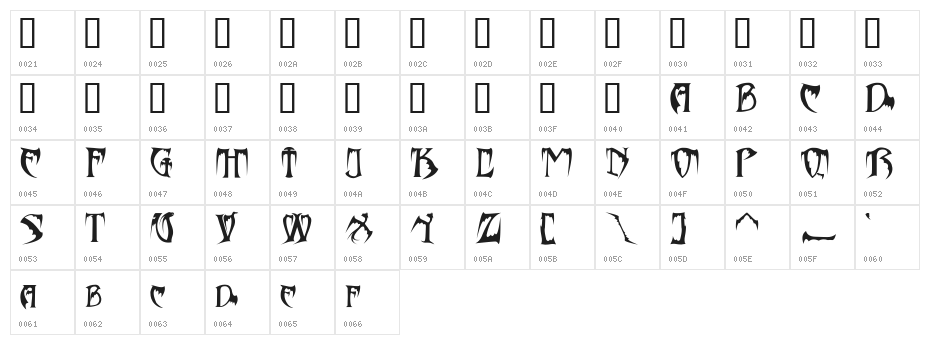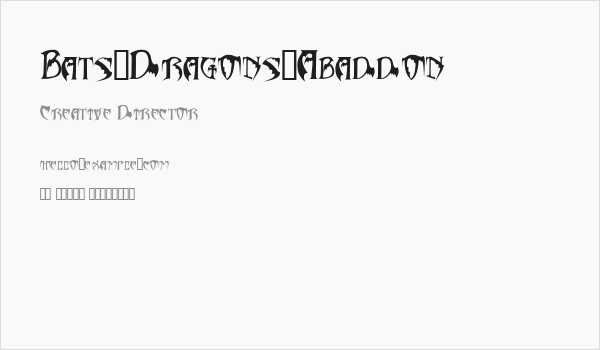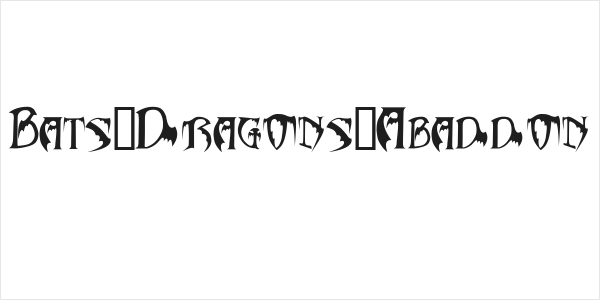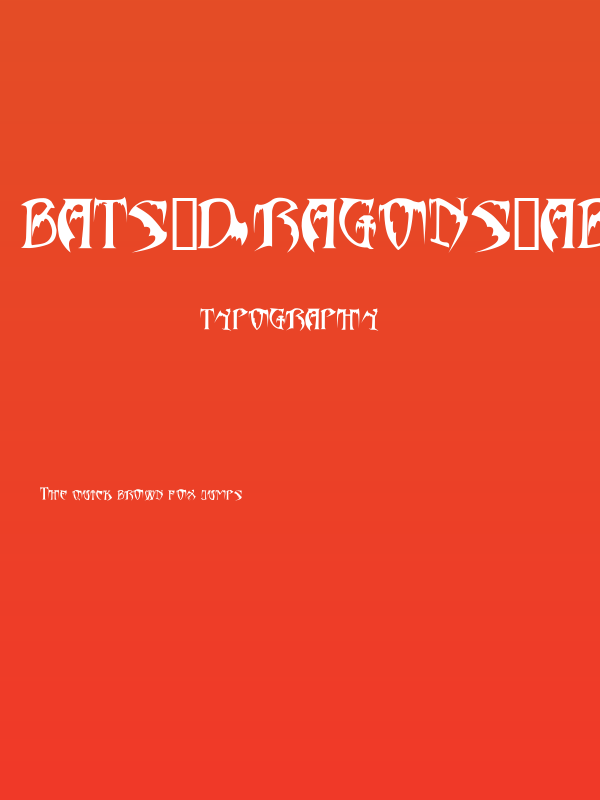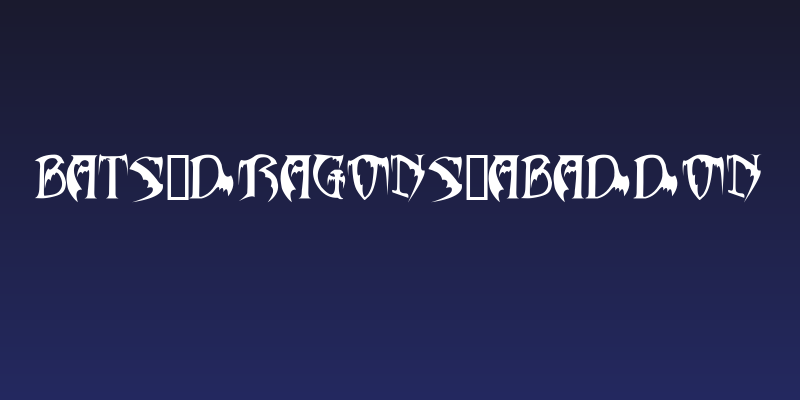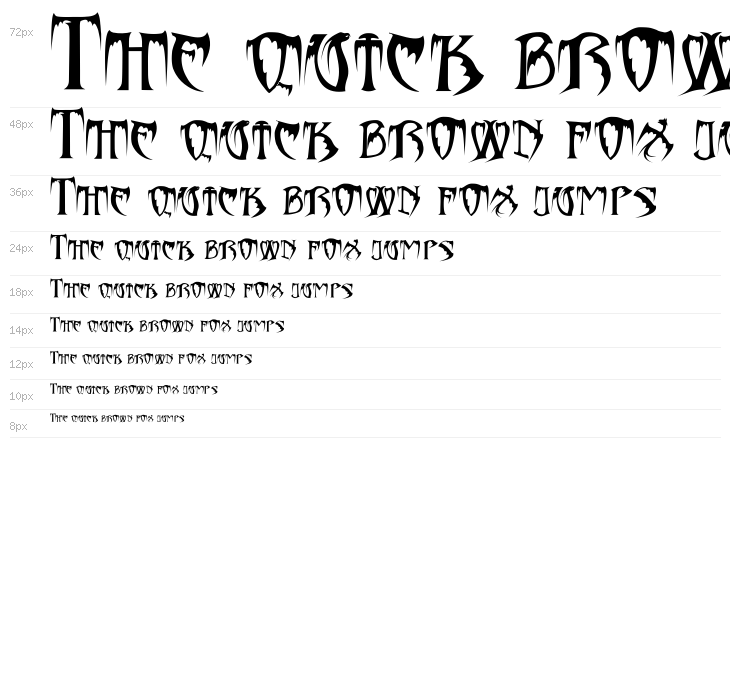
Bats&Dragons-Abaddon Font
Bats&Dragons-Abaddon Description
This font features a bold and dramatic style with sharp, jagged edges that evoke a sense of mystery and fantasy. The characters are highly stylized, with exaggerated curves and points that resemble the wings and claws of mythical creatures. The uppercase and lowercase letters maintain a consistent design, creating a cohesive and striking appearance. Numbers and special characters are equally ornate, adding to the overall theme. This font is perfect for projects that require a touch of the fantastical or gothic.
| Proposed Projects | Ideal for fantasy book covers, video game titles, Halloween event posters, and gothic-themed branding. |